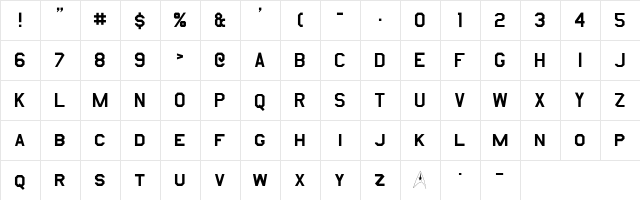
Complete AmarilloUSAFProDemo Medium glyph index. Displaying only characters natively supported by AmarilloUSAFProDemo Medium font.
AmarilloUSAFProDemo is a composed and adaptable typeface that performs quietly and consistently across a wide range of design contexts.